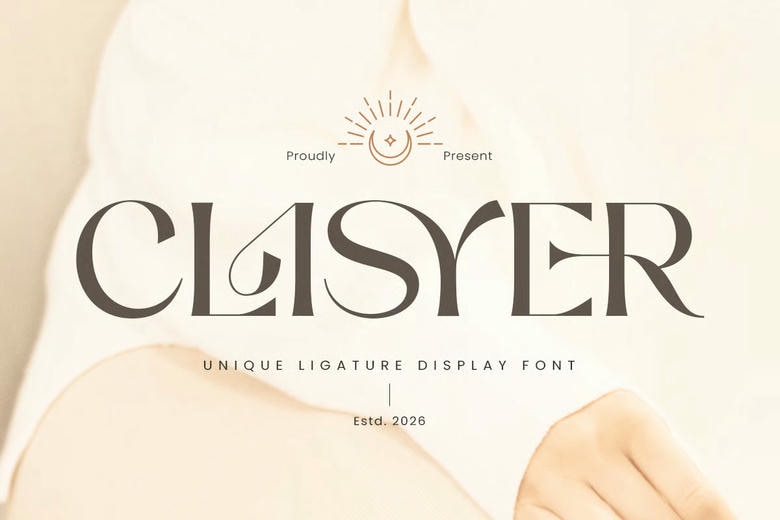
Clasyer Font
Clasyer is a unique ligature display font that was designed using stylish ligatures to create expressive, bold and eye-catching typography. With unique letter connections and a contemporary look of the display character, Clasyer is ideal for logos, brand, headlines, posters, packages, social media graphics and creative visual projects.
With his personality and flair, Clasyer strives for a combination of artistic ligatures with strong readability. Its display-focused style makes it perfect for creative brands, fashion labels, music projects, event promotions and designers looking for a font that packs a punch in terms of uniqueness and visual impact across print and digital media.
Clasyer Display Font